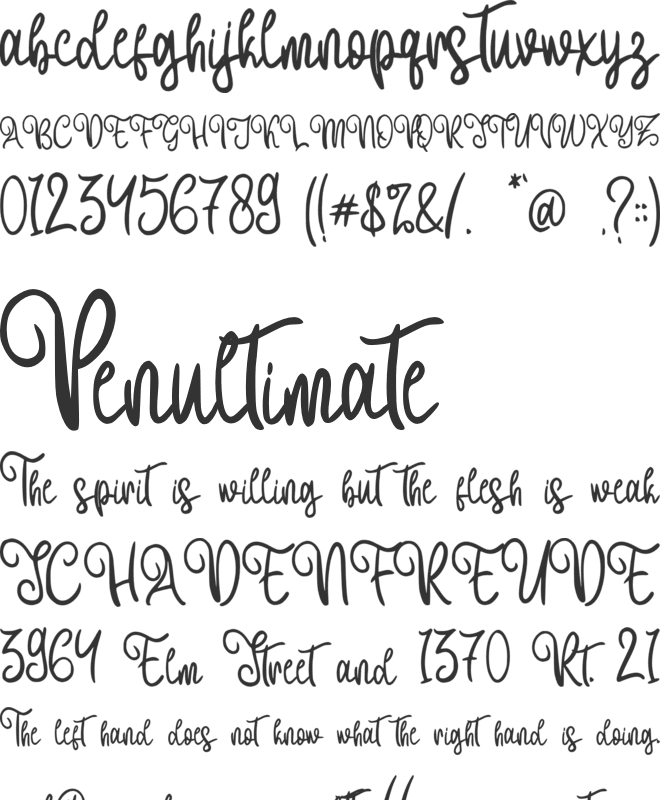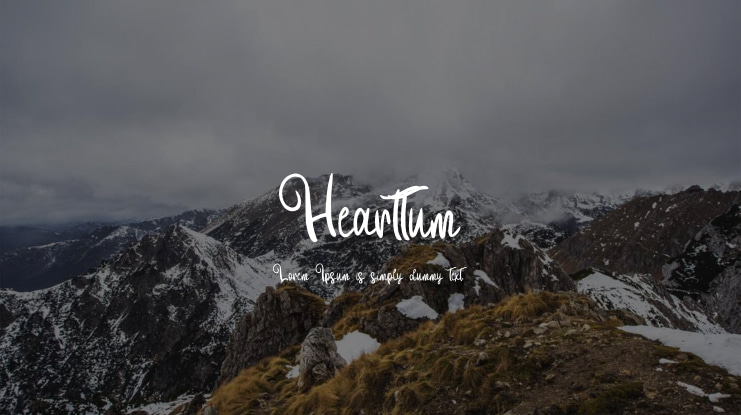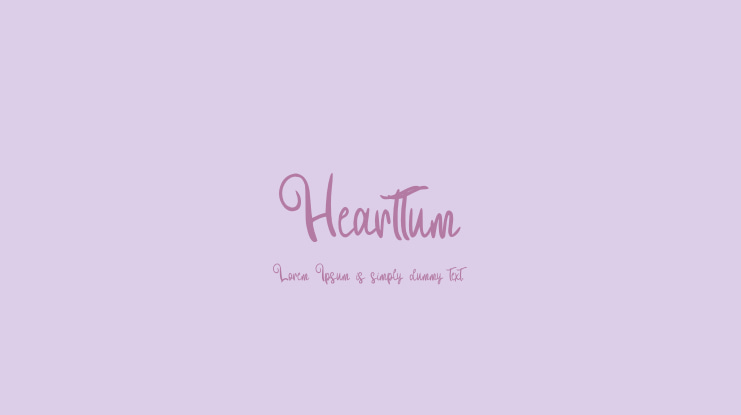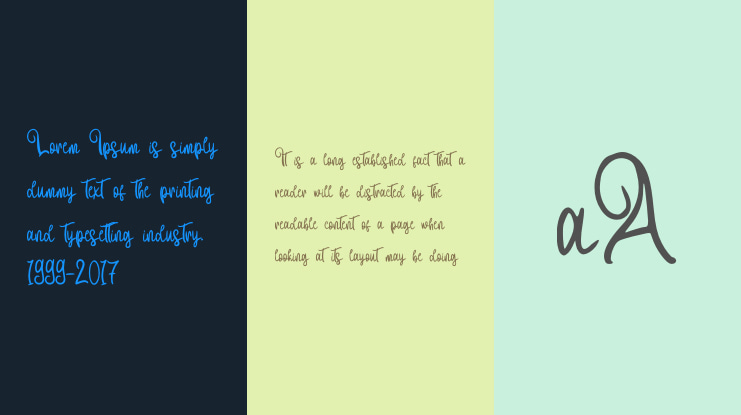
Hearttum Font
Hearttum is a handwritten font featuring smooth strokes and a romantic flair. It is ideal for invitations, greeting cards, and branding. Its delicate design and natural flow bring elegance and charm to creative projects with ease.